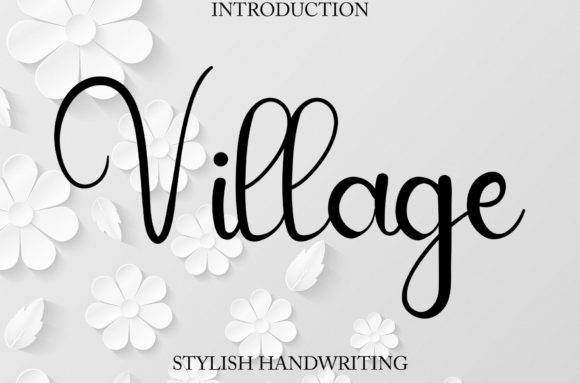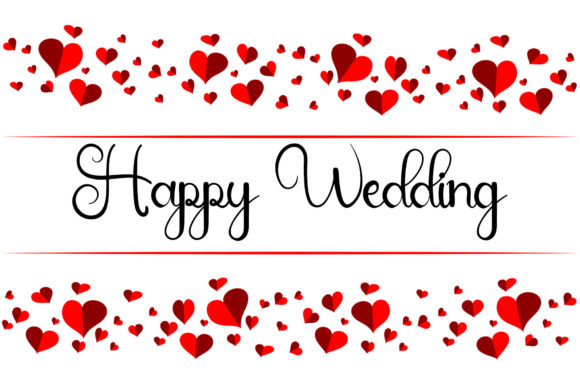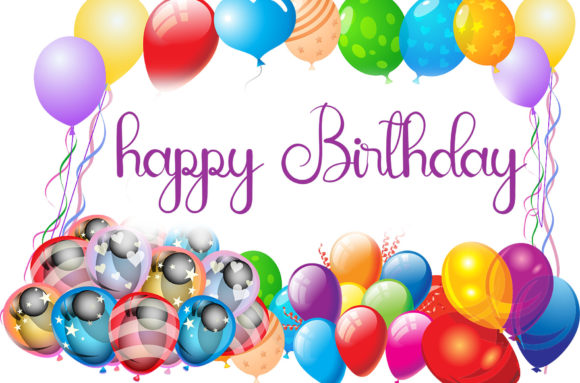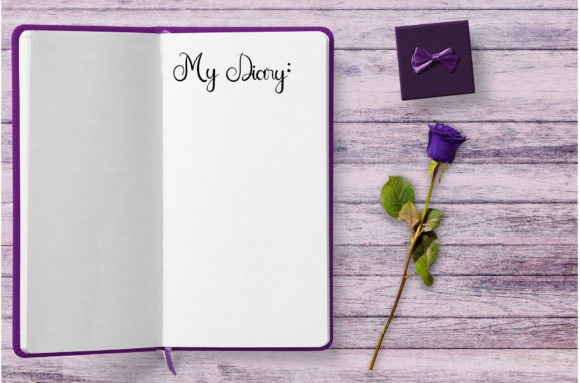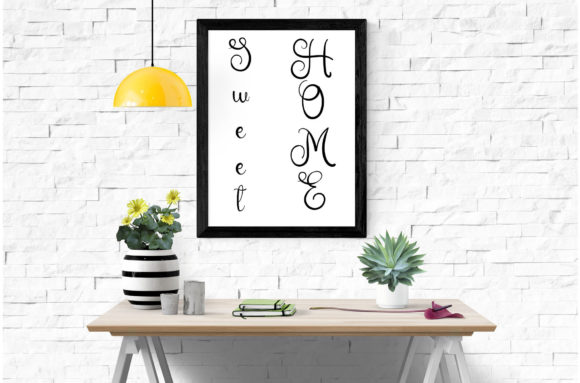
About Village Font
Village is a stylish and modern handwritten font that beautifully combines a flowing style with individually charming characters! This font is PUA encoded, which means you can access all of the glyphs and swashes with ease!